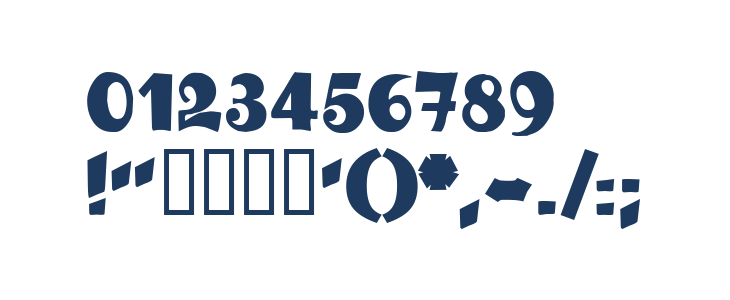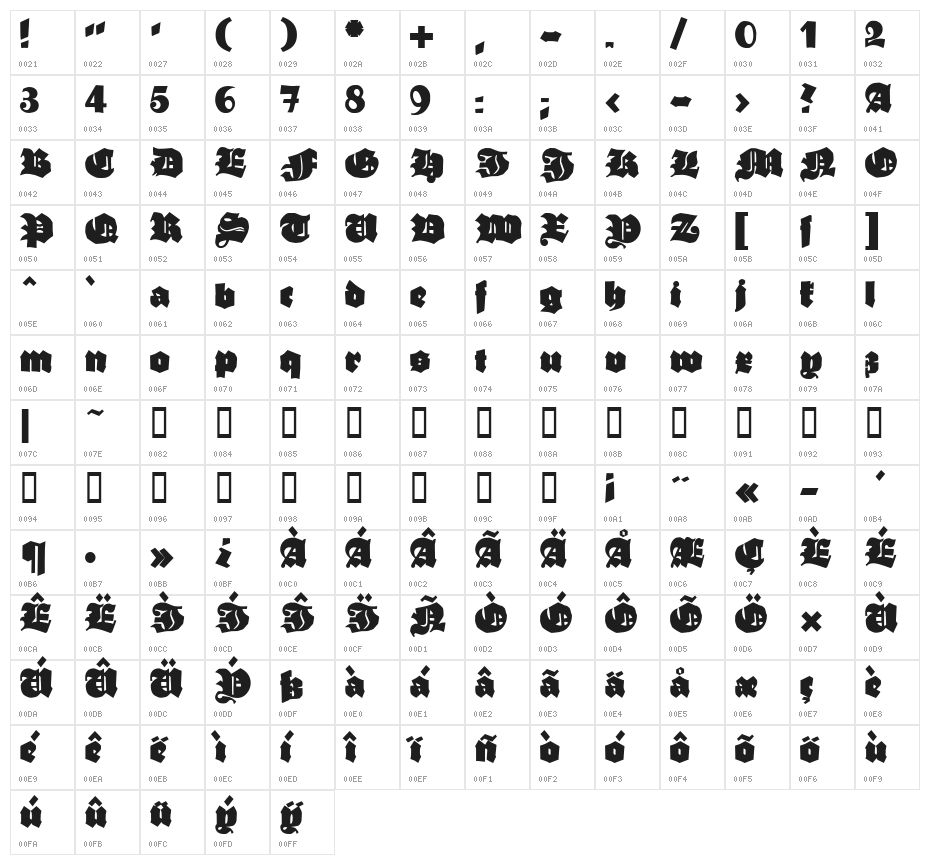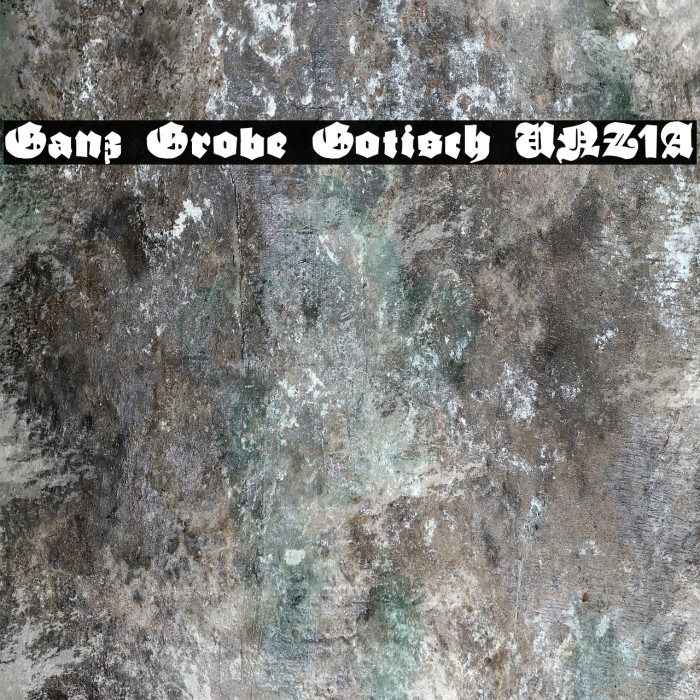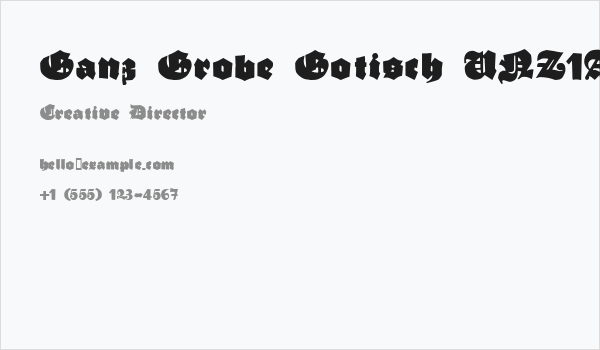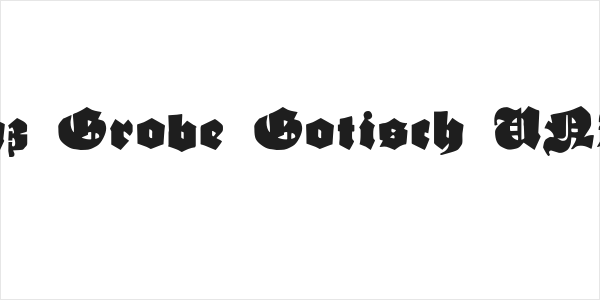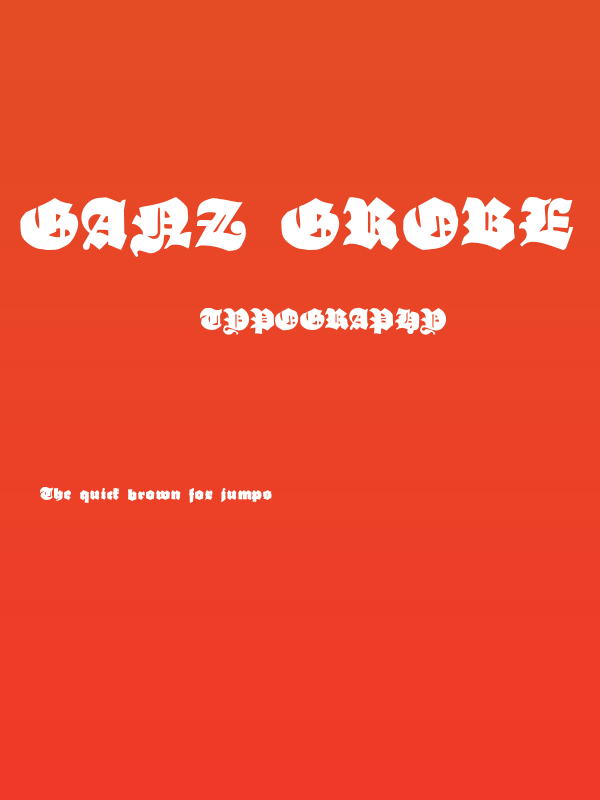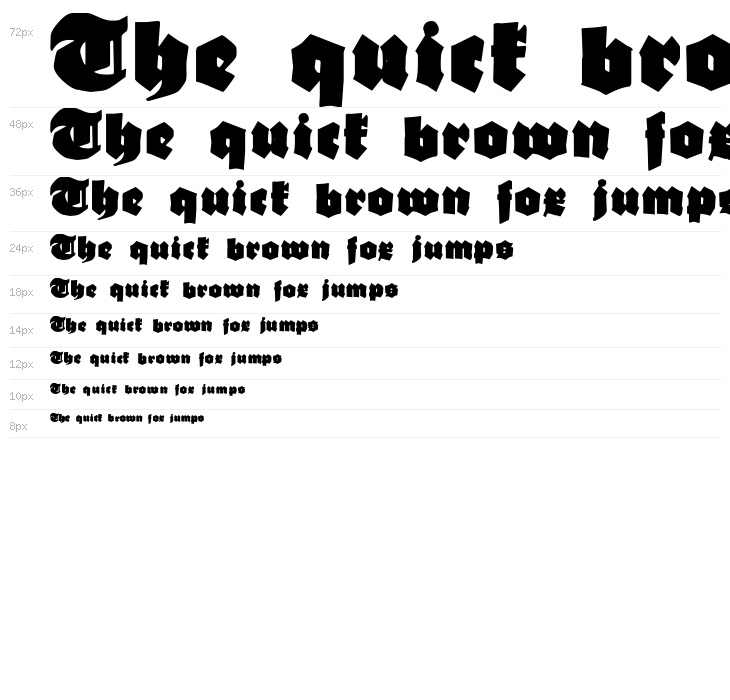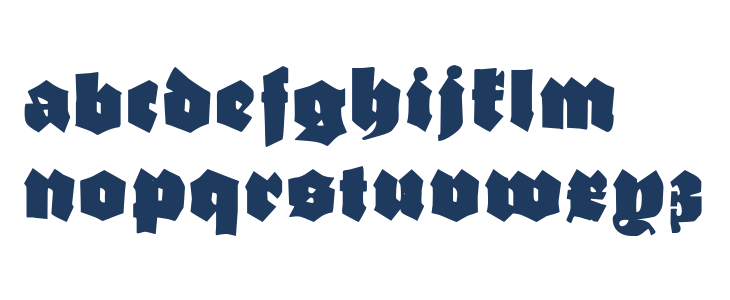
Ganz Grobe Gotisch UNZ1A Font
Ganz Grobe Gotisch UNZ1A Description
This font features a bold and dramatic style, reminiscent of traditional Blackletter typefaces. It showcases intricate and angular letterforms with sharp edges and strong vertical strokes. The uppercase letters are particularly ornate, with decorative flourishes that add a sense of historical elegance. The lowercase letters maintain the same boldness, with a slightly more compact design. Numbers and special characters follow the same stylistic cues, ensuring consistency throughout. This font exudes a sense of authority and tradition, making it ideal for projects that require a touch of historical or gothic flair.
Overall StyleVintage
Use CaseLogos, Headlines, Decorative text
Proposed ProjectsIdeal for historical documents, gothic-themed designs, book covers, and event posters.